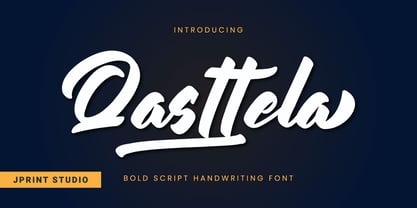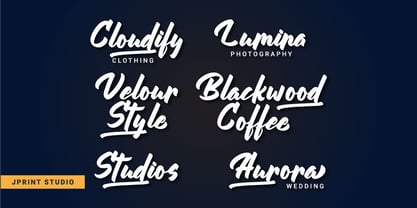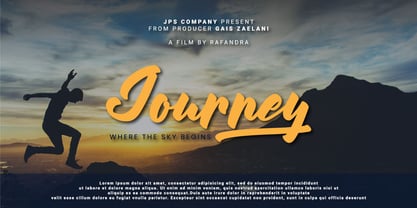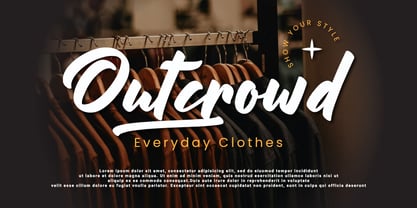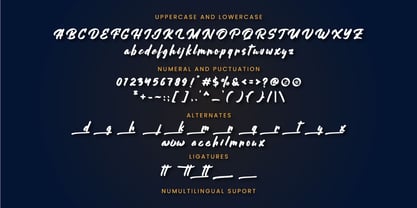
Qasttela Script
The Qasttela Script Font Family was designed by Gais Zaelani and published by JprintStudio. Qasttela Script contains 2 styles and family package options. More about this family
Unveiling the exquisite Qasttela font, a harmonious blend of style and casualness, sculpted with elegance. This handwritten marvel beams out comfortable chic that becomes an optimal pick for crafting breathtaking wedding invites or emotionally rich artwork. The font also uplifts your captivating social media content and evokes emotions in greeting cards by bestowing it with a personal touch. Qasttela is the perfect ally for you to effortlessly morph any artistic concept into a marvel. This font, ready and primed for your inventive explorations, liberates your imagination to reach unrestrained heights.